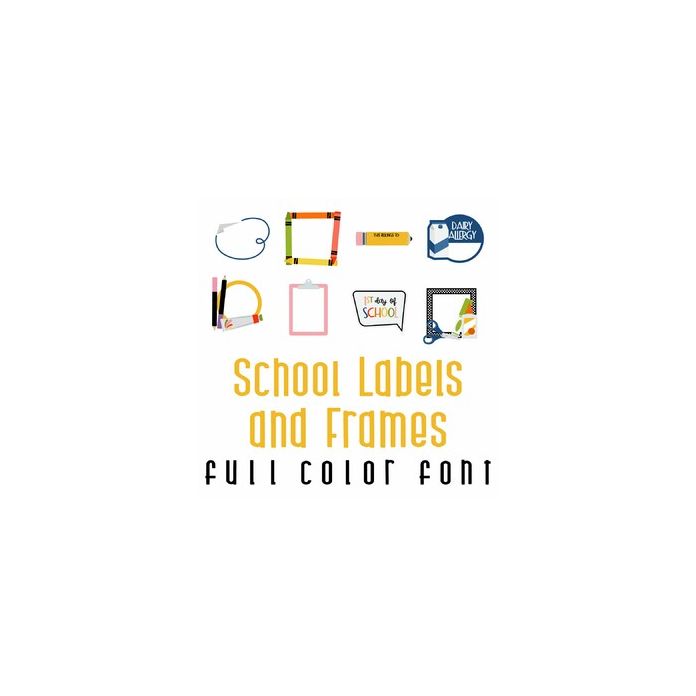
This adorable full color doodlebat font features fun school supplies, labels and frames. Perfect for cards, crafts, gifts, decor, scrap book pages, planner stickers and more!